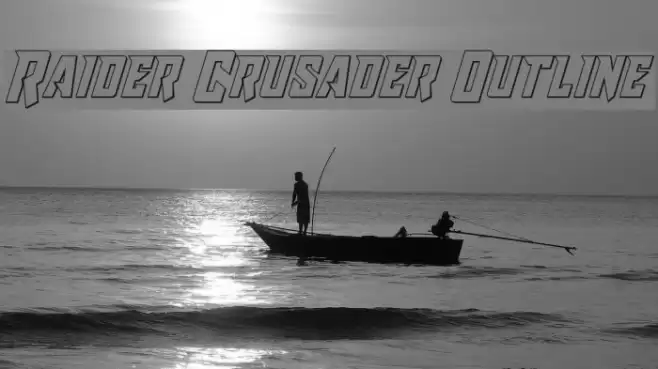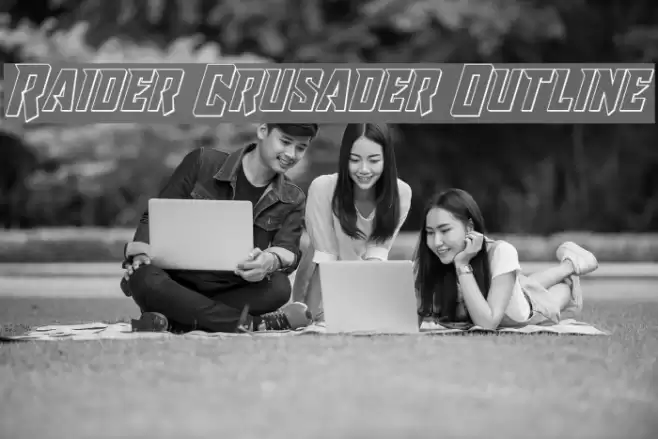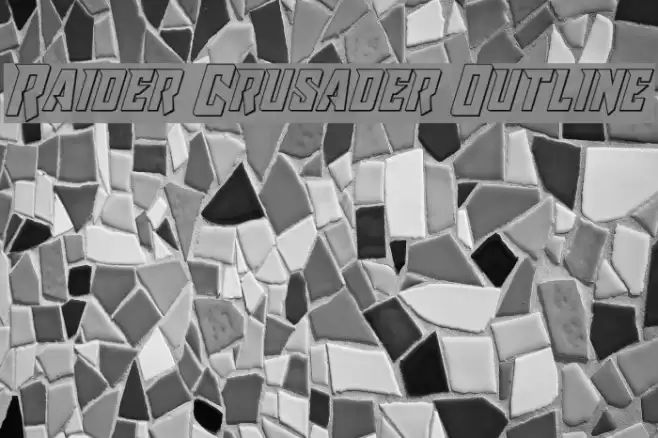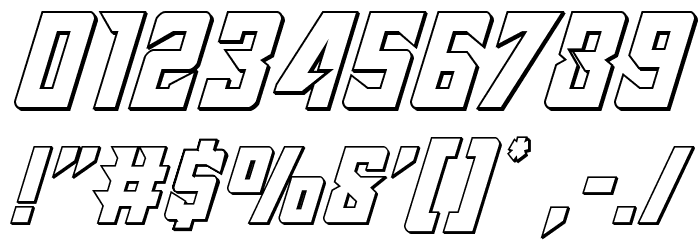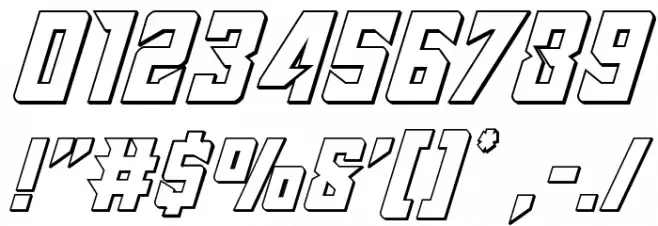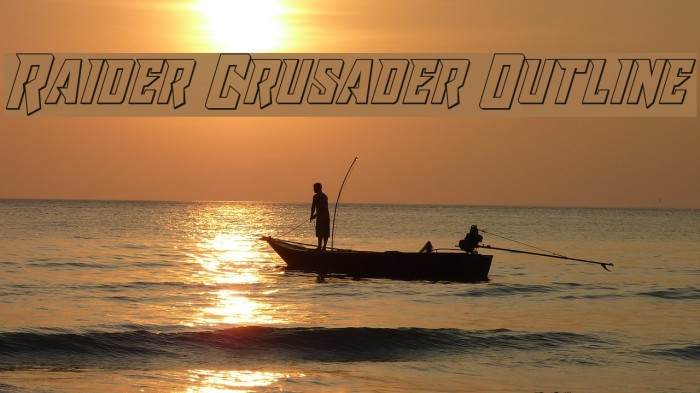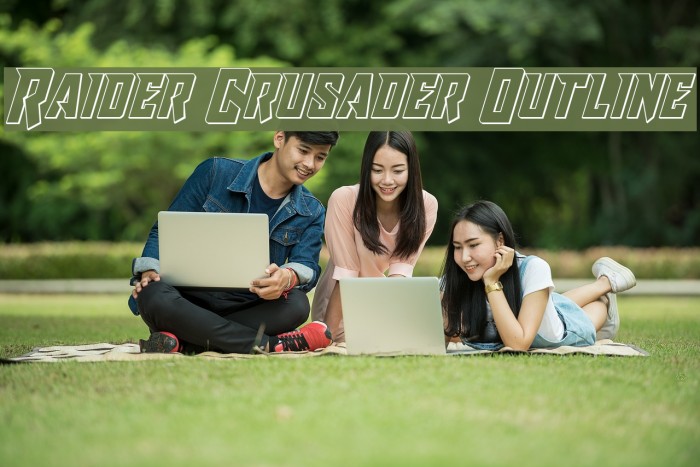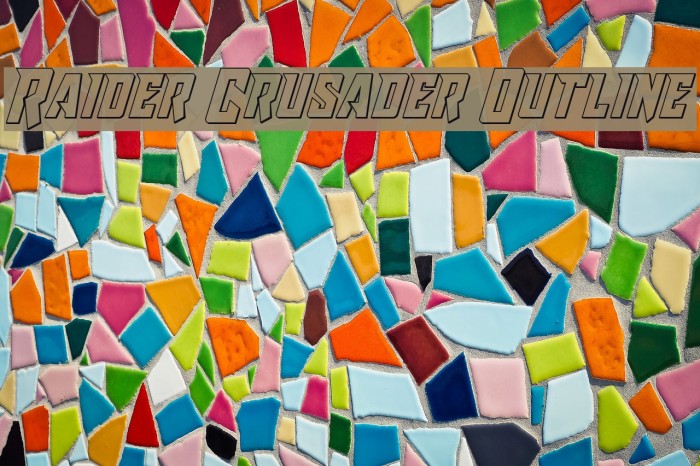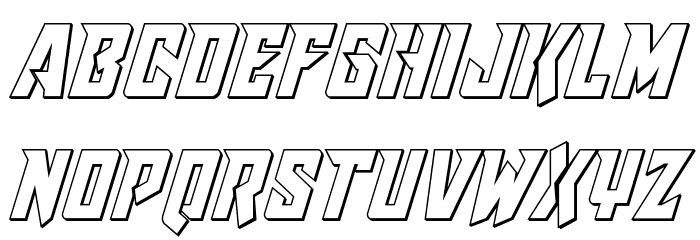
Raider Crusader Outline
This font features a bold, dynamic outline style that exudes a sense of strength and movement. The characters are designed with sharp angles and a slightly slanted orientation, giving them a forward-leaning appearance. The outline effect adds a layer of depth, making each letter stand out with a three-dimensional quality. This font is perfect for creating eye-catching headlines or titles that need to convey energy and impact. The uppercase letters are consistent in height, while the numerals and special characters maintain the same bold outline style, ensuring uniformity across different text elements.
A bold, dynamic outline font with sharp angles and a three-dimensional effect.
- Proposed Projects: Ideal for sports team logos, action movie posters, or any project needing a bold, impactful typeface.